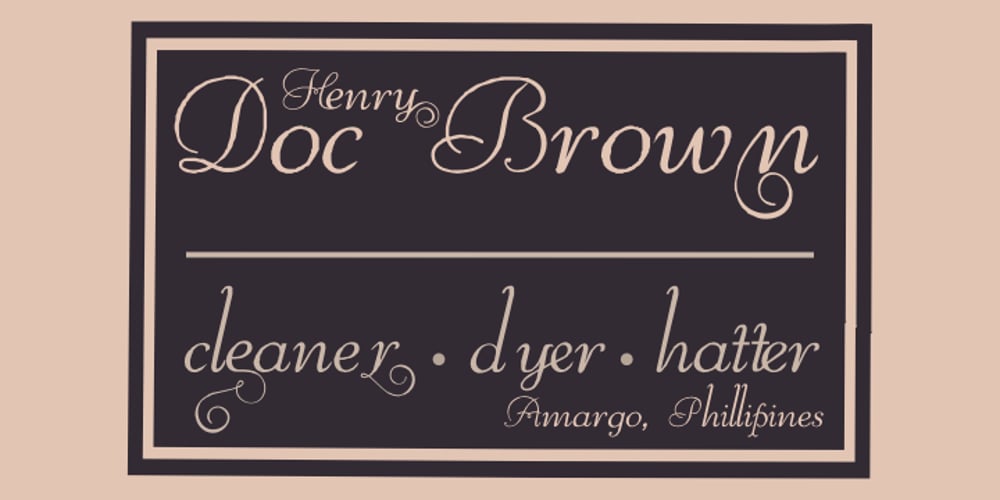
Reliant Font Family was designed by Willard T. Sniffin, Lucian Bernhard, Iza W, Dmitry Greshnev and published by Intellecta Design. Reliant contains 2 styles and family package options. Reliant is a free interpretation of the classic design from fonts “BernhardSchoenschrift”, originally designed by Lucien Bernhard and “Liberty”, designed by W.T. Sniffin for ATF in 1927, following the original designs from Lucien Bernhard. This enhanced OpenType version has complete sets in Greek and Latin alphabet with Central European, Vietnamese, Baltic and Turkish complete resources with all diacritic signs and punctuation marks plus extra characters belonging this ranges. A Cyrillic alphabet completes the font, and we thanks to Dmitry Greshnev from Green Type. He help us to fix our original Cyrillic alphabet to the Cyrillic readers. We added a extensive set of ligatures (stylistic and contextual alternates plus discretionary ligatures) providing a lot of letterform variations that make your design really special, plus swashes and tails ornaments (to artistic increase any letter of this font) more fractions and number ligatures (a strange idea from Iza W). Over 800 glyphs which you have total access using software such as InDesign, Illustrator, QuarkXpress and others.